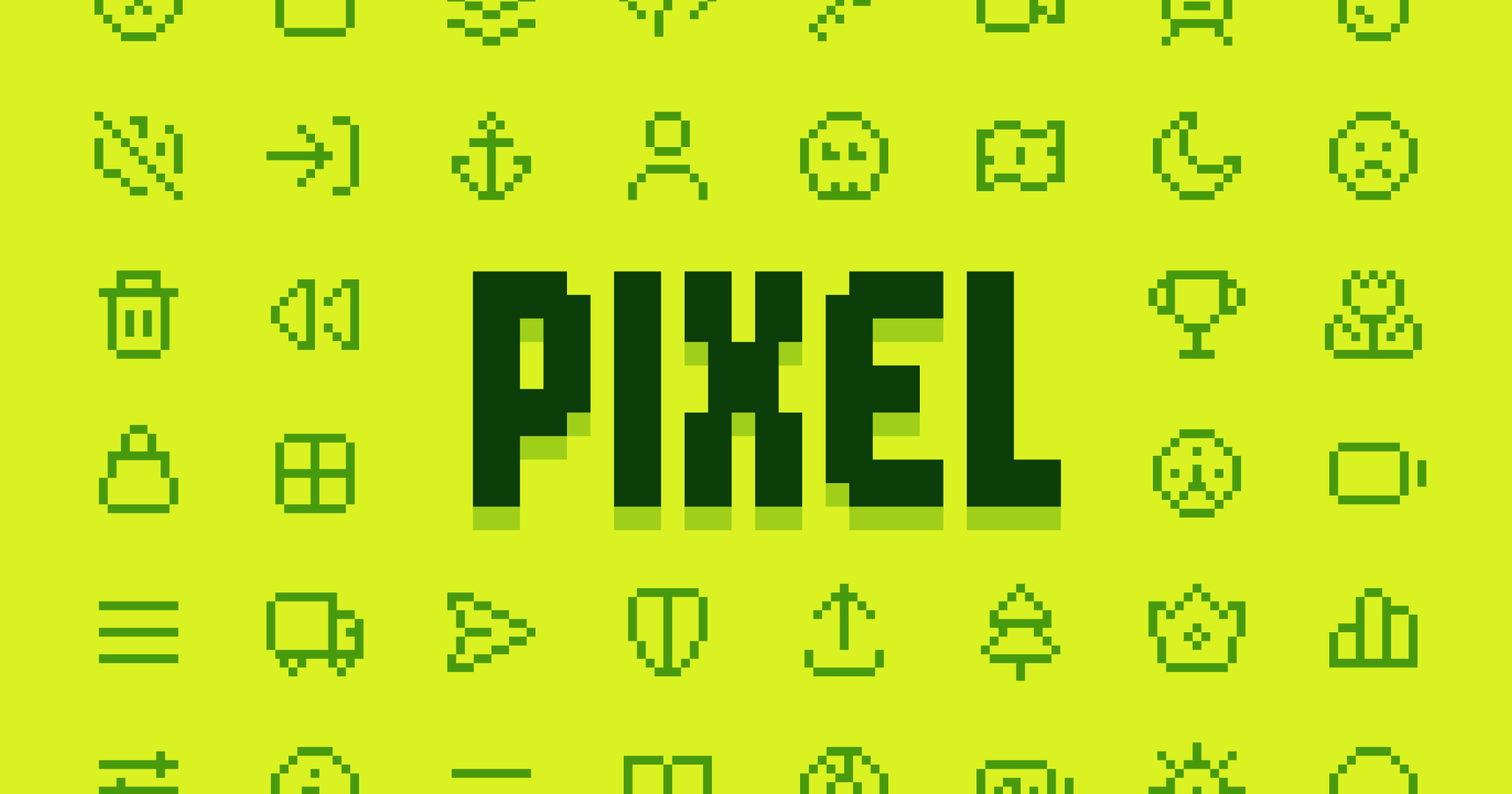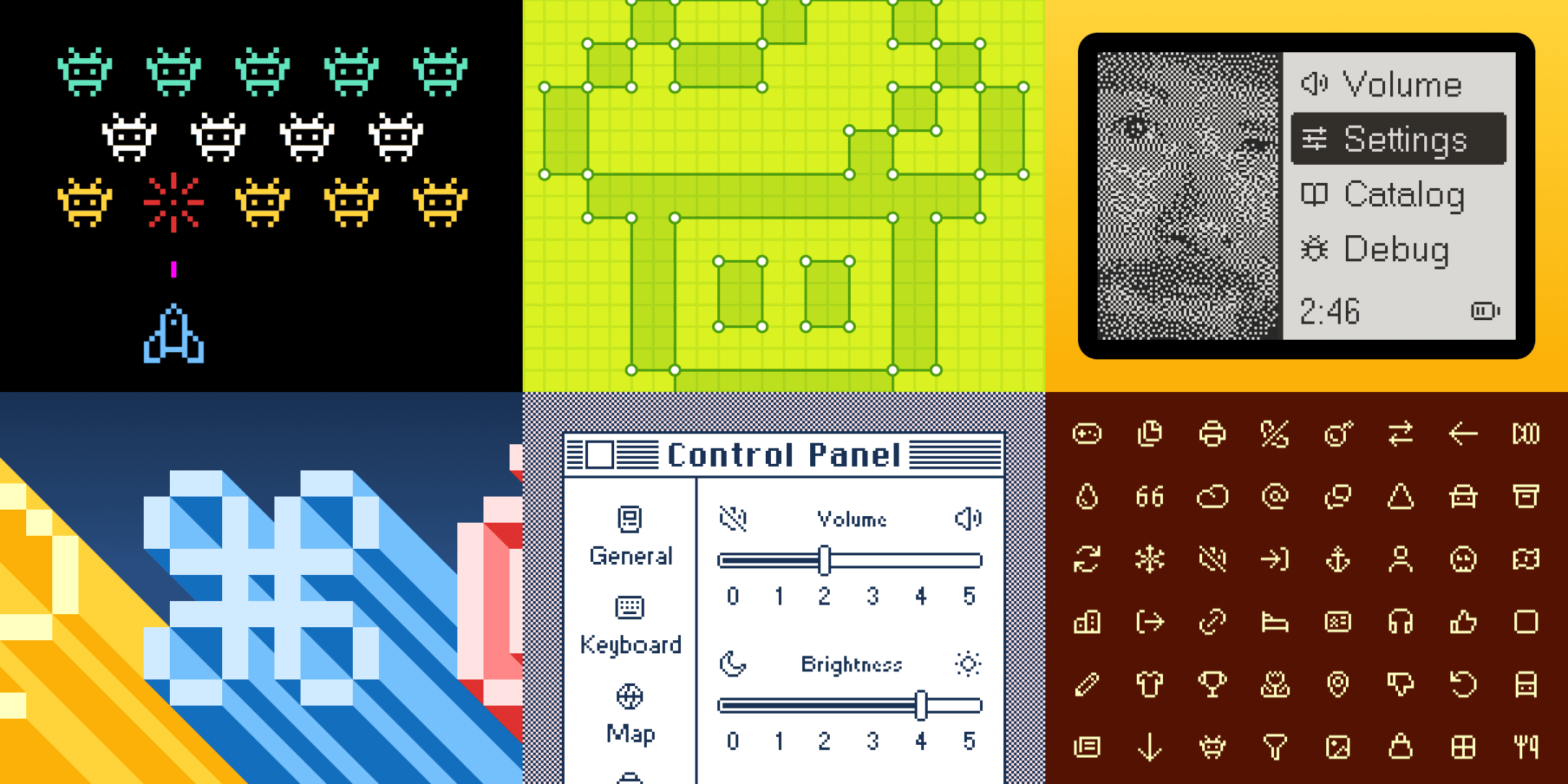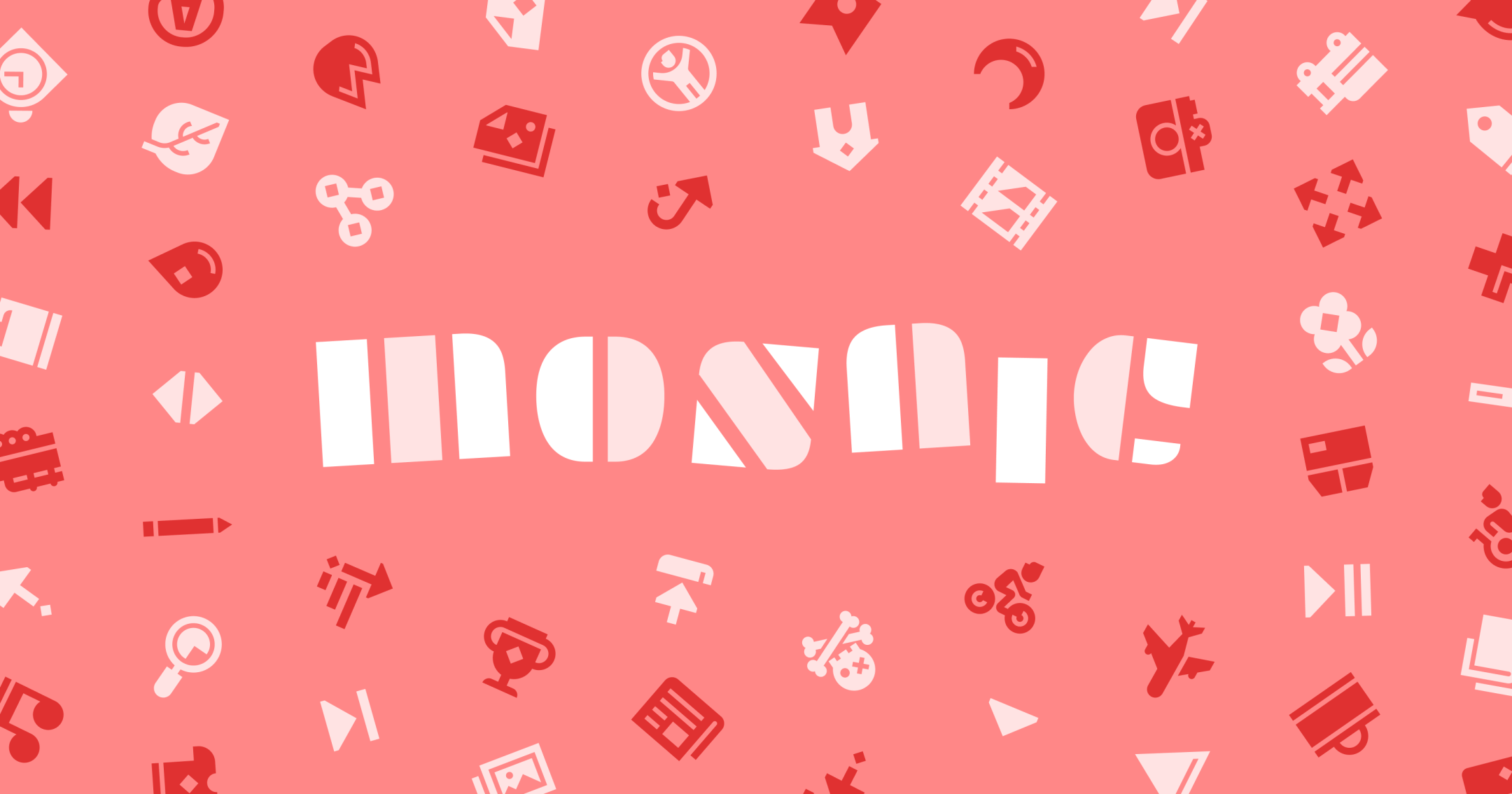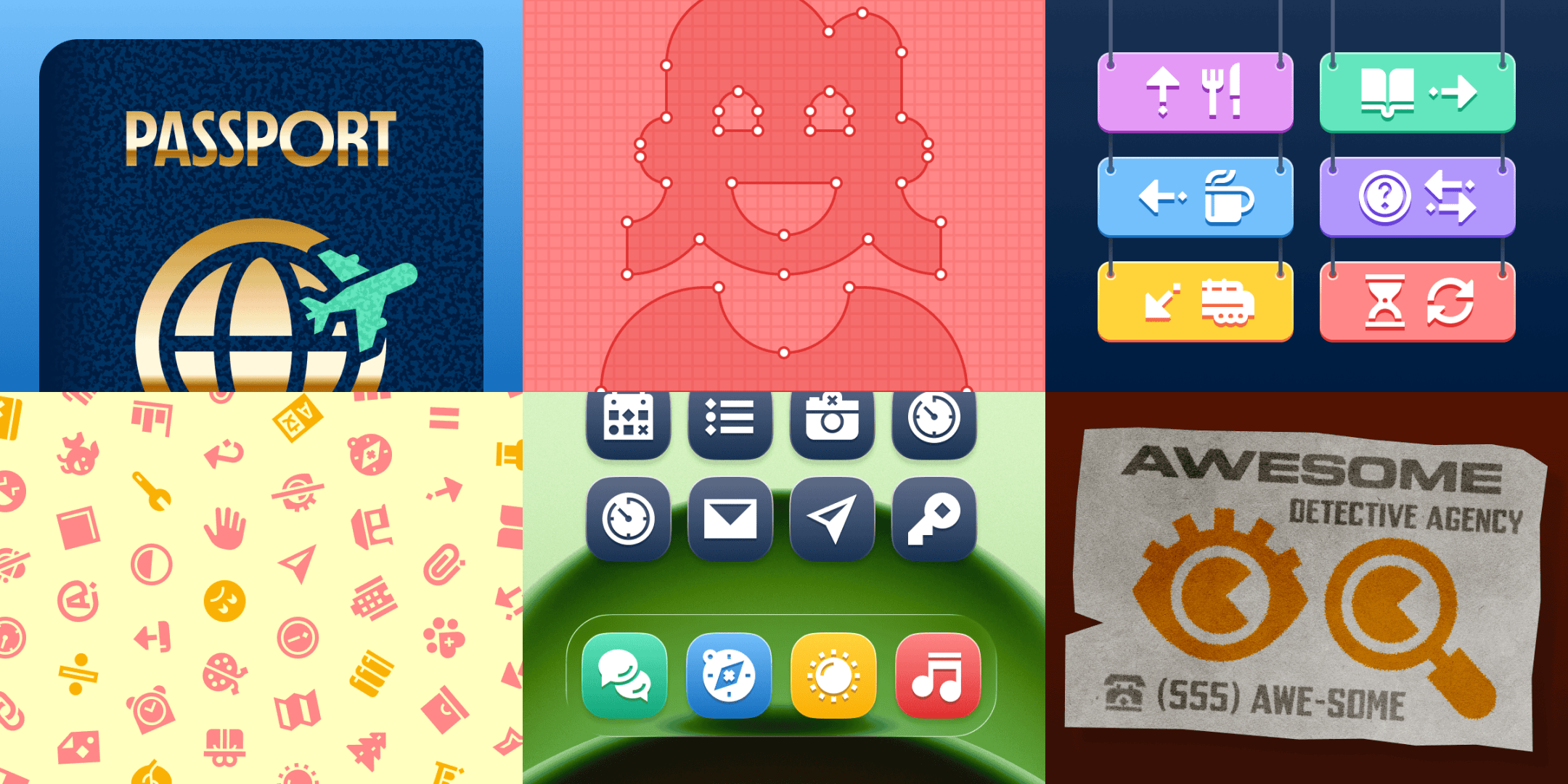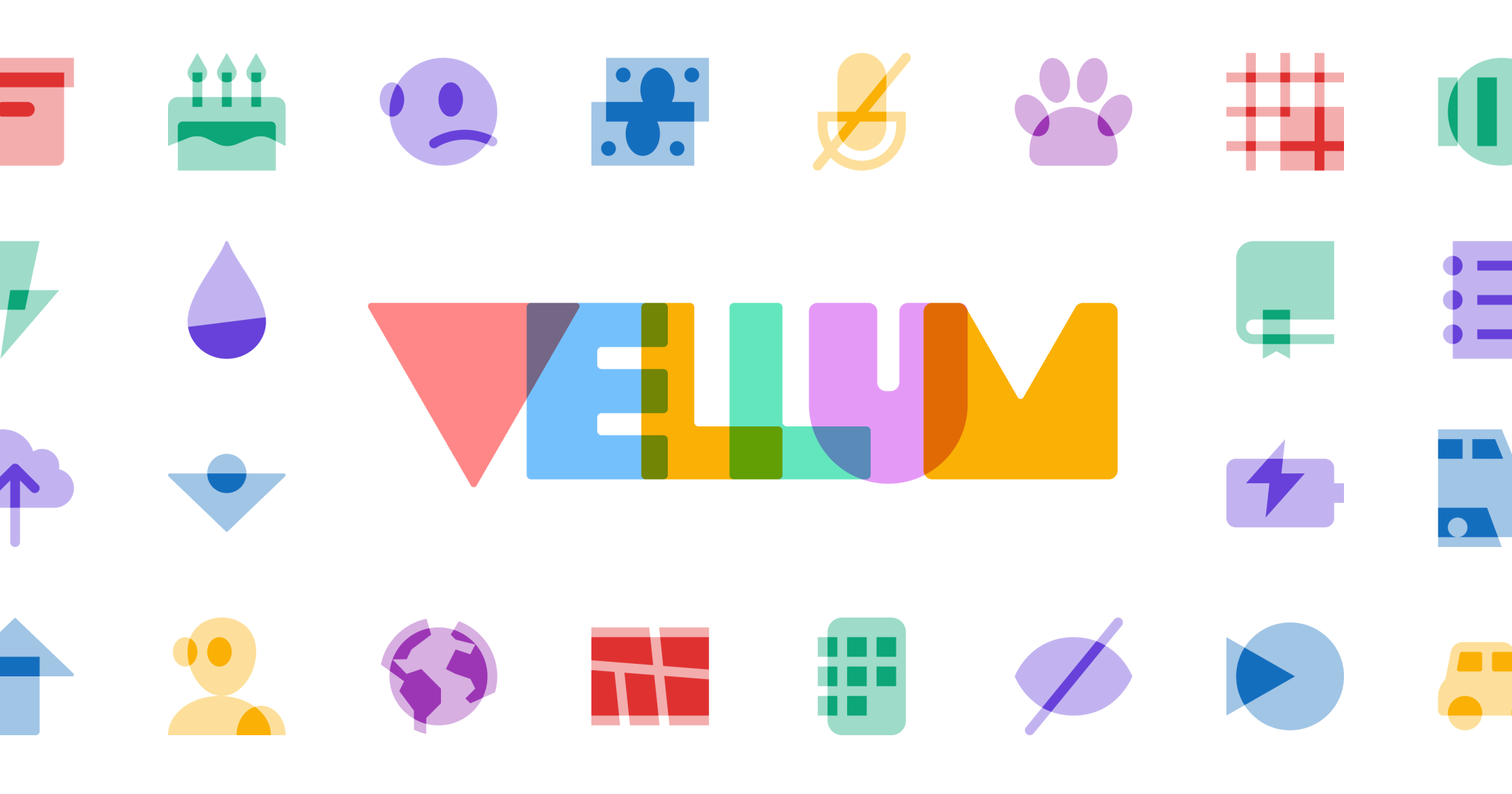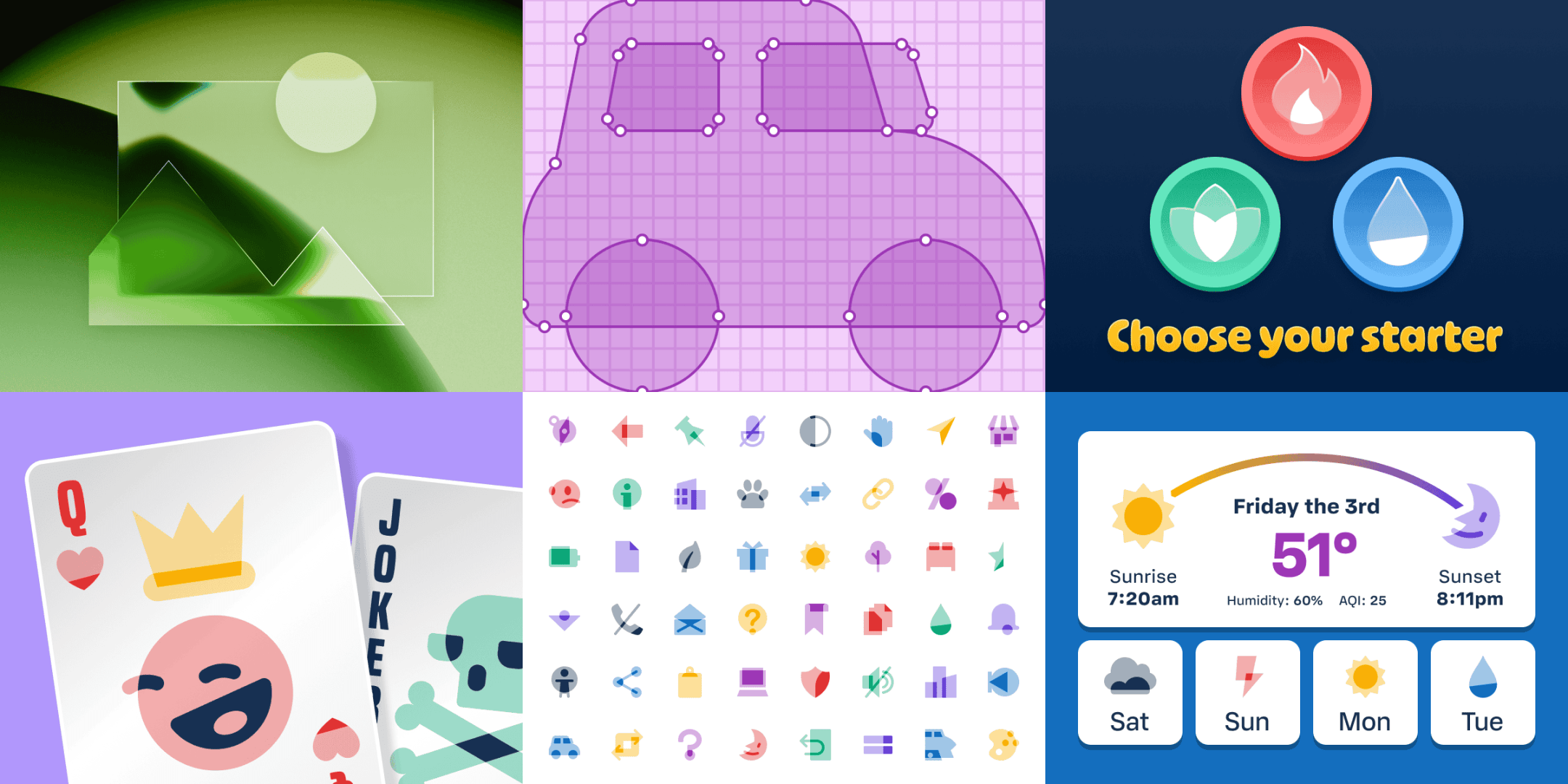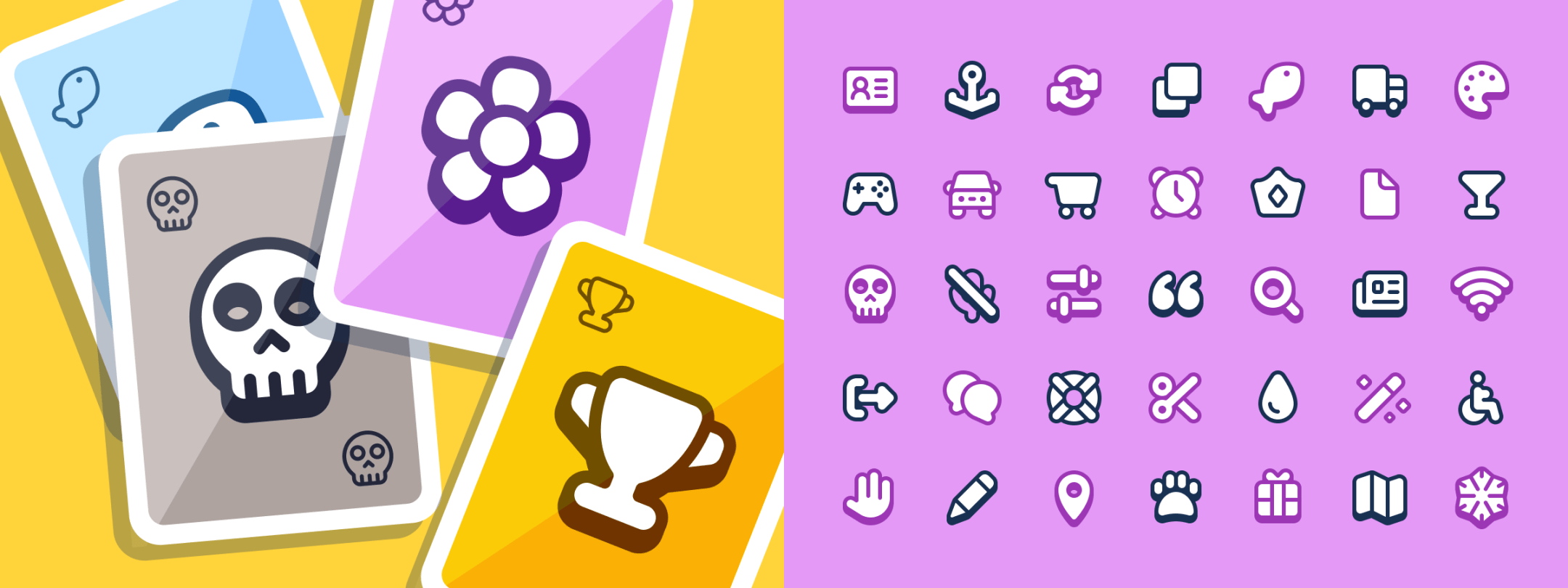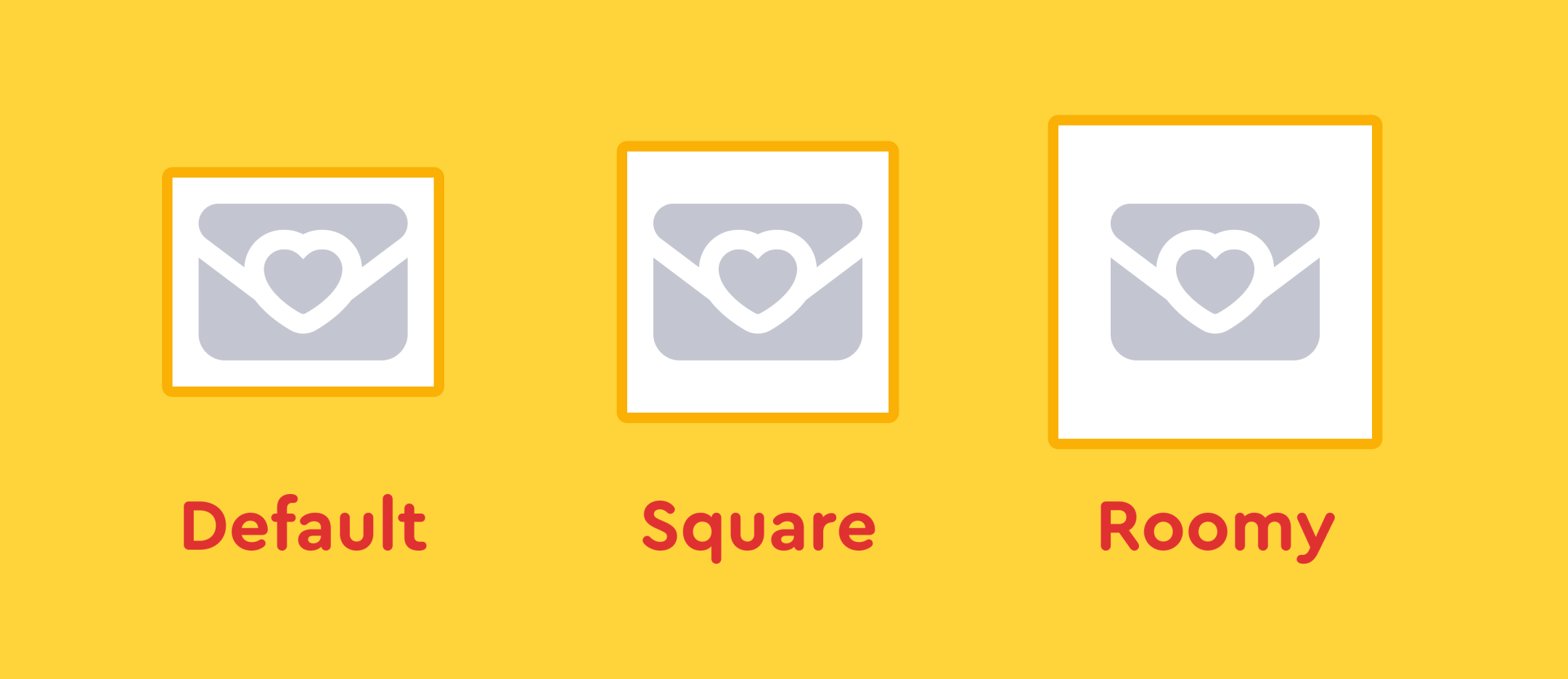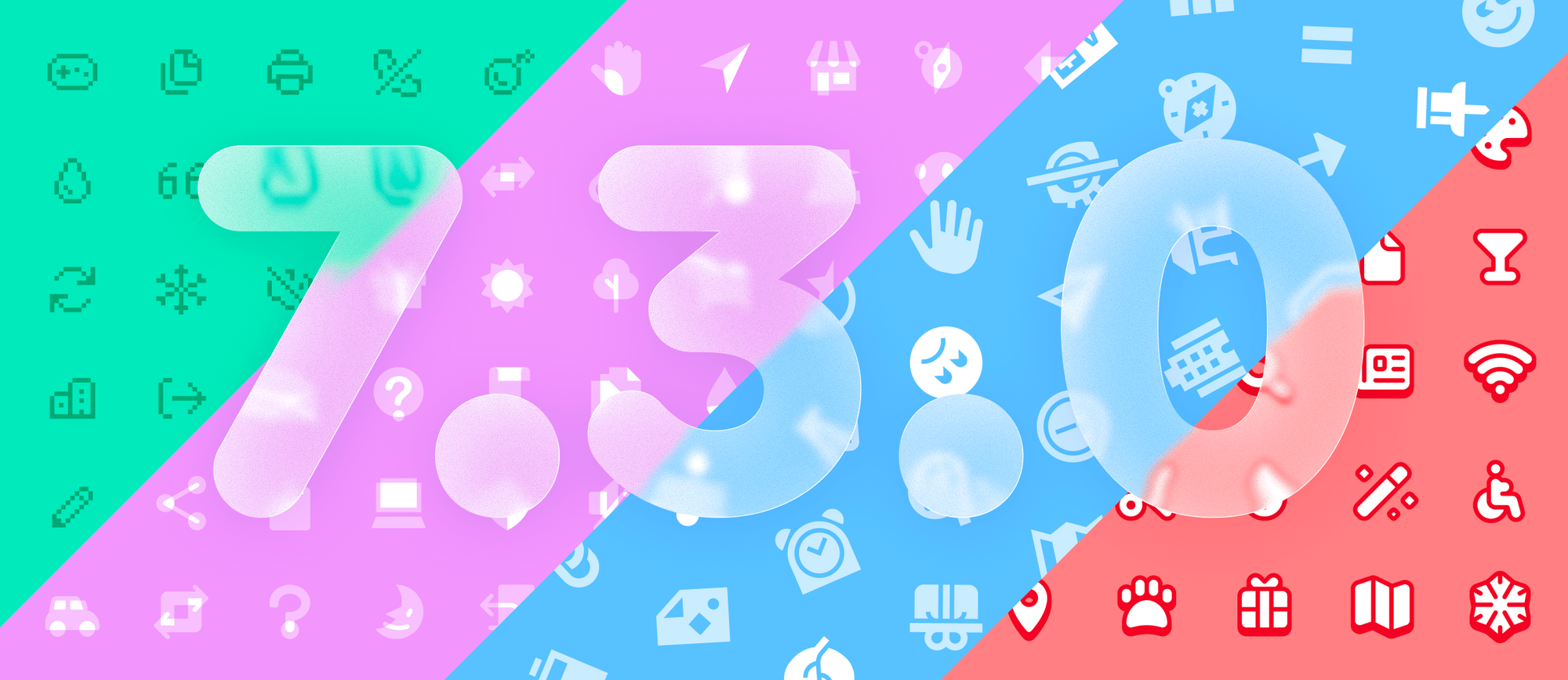
Summer’s here (for those of us in the northern hemisphere, anyway), and so is Font Awesome 7.3 — live and ready to give your project some personality. This release leans into motion, depth, and texture, with three new Pro+ packs, a couple of fresh Slab styles, six new animations, and a handful of quality-of-life fixes (including one very overdue correction for our own mascot).
Three New Pro+ Packs
Pro+ subscribers get a serious style upgrade this release, with three brand-new icon packs, each with its own personality!
Pixel – It’s hip to be square
Before high-density displays, the mighty pixel was king. Before quarters held your place at the arcade and computers ran on 128kb of memory. If you’re prepping your next plumbing adventure or space invasion, Pixel is ready to byte.
Mosaic – All the pieces are coming together
Icons are little art pieces built from many elements, and FA Mosaic is no different. Master craftsman Josh Williams blends solid forms, swoopy curves, and the fun little sprinkles he lovingly calls “quirks.”
Vellum – Layers of depth
We like our icons like we like our jokes: layered. Guest designer Brian Brasher guides you through overlapping slabs of significance for a pack with real dimension.
New Slab Styles
Our sturdy, blocky Slab family grows by two: Slab Duo and Slab Press Duo. Both add a second layer of color and depth to icons that already feel bold and ready for action.
Icons With Main Character Energy
7.3 adds six all-new animations — fa-wag, fa-swing, fa-float, fa-buzz, fa-spin-snap, and fa-jello — and gives our existing animations a glow-up too. We leaned into classic animation principles like anticipation, weight, playfulness, and physicality to make the motion feel alive. All animations respect prefers-reduced-motion and work out of the box. Check out the full rundown in the animation docs.
Give Your Icons Some Breathing Room
We also added two new opt-in padding utilities: fa-canvas-square and fa-canvas-roomy. Square gives your icon a clean, even square canvas; Roomy does the same with a bit more space to breathe. Both scale in em units and mirror the options in our Figma component, so what you design is exactly what ships.